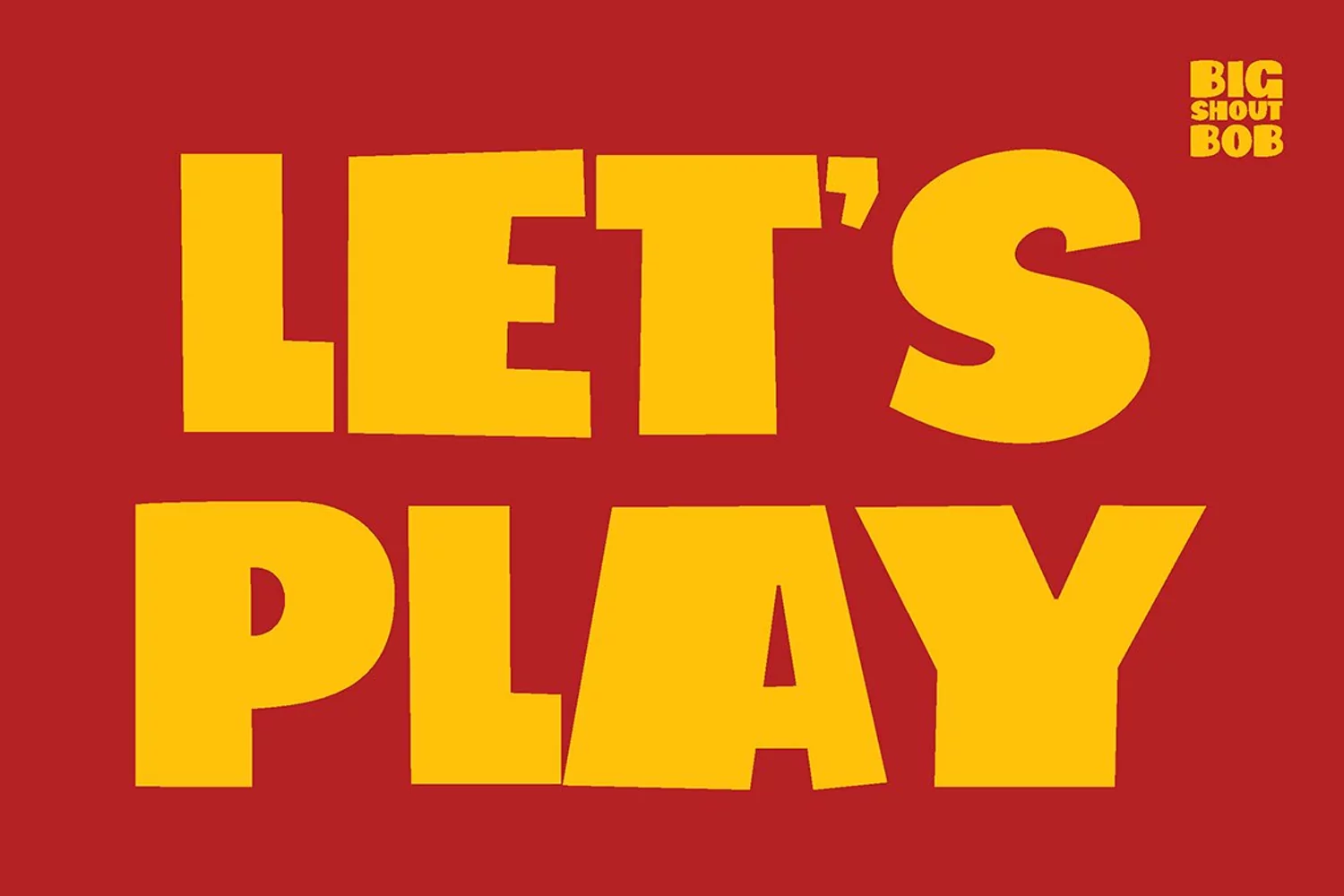
Big Shout Bob - Comic Font
Big Shout Bob comic font it's all caps with slight differences between upper and lowercase. Both gives your project an amazing attention grabber.
Bold, Black, and full of energy.
Suit perfectly for Online Games, poster, movie title, fast food menu, magazine, youtube covers, youtube thumbnails, social media page covers and so on...
• Basic Latin A-Z and a-z
• Punctuation
• Reguler and Slim, both have an Italic version.
• PUA Encoded Characters